Quentin Schmerber: how history shaped Temeraire
History can be a great instigator for creativity. In Quentin Schmerber’s case, it has won him awards for his Temeraire font family, which has shown up in wonderful uses. We reconnected with Quentin to discuss that typeface and the process needed to prepare it for release.
In 2016 Quentin Schmerber was awarded as the third recipient of our Gerard Unger Scholarship (back then called Typeface Publishing Incentive Programme), after Roxane Gataud and Juan Bruce. His Temeraire font family, developed during his postgraduate studies at ESADType (Amiens, France), was a collection of typefaces designed as contemporary interpretations of the English lettering tradition.
With the support of our TypeTogether mentorship, Quentin shaped them into a coherent family, making the hard decisions to let go of parts that did not fit together, and polishing and extending those that would uplift the family. In this interview we discussed inspirations, processes, English lettering, and life beyond the environment of the school.
Hi Quentin, it’s so good talking with you! Tell the readers a little about you, your background, and how you ended up at ESADType.
I graduated in 2012 with my bachelor in graphic design from the Haute École des arts du Rhin Strasbourg (formerly École Supérieure des Arts Décoratifs de Strasbourg), where I had the chance to discover lead typesetting, thanks to Bettina Muller. I decided to pursue my Masters at the school in Amiens because I was already getting interested in type design and was aware that they were providing an introduction as part of the graphic design courses. Happily, I was accepted and joined the school. It’s a pretty small school and the teachers eventually noticed my interest in type design and convinced me to apply to the ESADType postgraduate course. I was even invited to workshops by Frank Grießhammer, Martin Major, and Christian Schwartz before applying!
I got hooked and it became a no-brainer that I should do it, despite having some job opportunities in graphic design after my Master’s graduation. Thankfully the school librarian, Peggy, offered me a position to assist her several days a week, and this allowed me to sustain my living during my extra stay at the school. I applied and got accepted, along with my best friend, one of my good classmate friends, and three other people whom I didn’t know at the time.
From left to right: Erwan Beauvir, Martin Pasquier, Roxane Gataud, Quentin Schmerber, Hugues Gentile, Isaline Rivery, Dorine Sauzet. Post-Diplôme «Typographie & Langage», at the 2015 FDK Workshop 2015 run by Frank Grießhammer. Photo courtesy of Frank Grießhammer.
Let’s start at the beginning. Where does Temeraire come from? Was there a particular brief for this project?
The ESADType course starts with roughly five months of training and design exercises. Then we have to focus on a personal project for the remaining year. Our teachers advised us to start with a fictional brief so I chose to design a bespoke typeface for a British pub, which was actually just an excuse to explore some source material from the UK.
This is problematic to say today, but my first contact with British lettering were very cliché inscriptional typefaces by an awful human being (purposefully unnamed here), and Albertus by Berthold Wolpe, who is not even British. I replicated some of their gimmicks in the first draft of what would become Temeraire.
It’s only when I discovered the body of work by the late Alan Bartram that my perspective completely shifted to something else. I found so many unexplored styles and letterforms on the gravestones he documented in his books, which got me really excited. The (re)discovery of John Baskerville’s work and the English Vernacular genre were significant for what Temeraire would become.
Alphabets from Carrington Bowles’s Lettering manual (London, 1775) — reproduced in motif magazine, James Mosley, “English vernacular“, p. 16.
Roman Print by Joseph Champion (1709–68), engraved by Georges Bickham. From “The Universal Penman” (1733–41).
Let’s talk about inspiration. Obviously, the English lettering tradition is embedded in Temeraire, but there is also a formal connection to families like Jeremy Tankard’s Trilogy series (2009). Are there other sources of inspiration that were part of the process?
The ‘Call it what it is’ essay by John Downer has helped me understand and explain what I was working on, and should be listed as one of the main inspirations for the project. Of course, I was also inspired by contemporary type design in general, as I didn’t want Temeraire to be old-fashioned or nerdy, but to look fresher than ever. Type designers like Maria Doreuli, Robin Mientjes, Paul Barnes, and Kai Bernau have shaped my way of drawing letters and envisioning type design. The design practice of the John Morgan studio and Alaric Garnier were also heavy influences on Temeraire.
Tomb in St Teath, Cornwall, presenting a combination of styles that triggered the possibility of creating a nontraditional type family. Image from Alan Bartram, “Tombstone lettering in the British Isles”, p. 80.
Lettering in St Breage’s Church in Breage, Cornwall. Courtesy of Paul Barnes.
Temeraire is a challenging type family in the sense that the styles don’t follow the traditional set of regular, bold, and italic. The family is instead constructed as a framework of individual styles that bring together “conspicuous inconsistency”. At what point was it clear that you were not creating a traditional family in that sense? What was your journey for setting up a nontraditional family?
Indeed the relationship between Temeraire’s various styles is pretty peculiar, and not exactly what you would normally expect from a commercial font family. Significant shapes are different in almost every style, and what ties them together is only the fact that they match conceptually and stylistically.
I didn’t give much thought to that during the process, it emerged organically from all the sources I had and somehow it made sense to me to continue in that direction. I guess it’s pretty similar to Stephen King’s philosophy that when you write a story for some characters, the characters end up carrying the story for the writer. Temeraire took on its own identity and just led me there.
In my practice of graphic design, I like to mix and match contrasting fonts and styles to achieve a result with more visual interest. I’d like to point out a piece by Bethany Heck on the subject; this idea likely comes from there. Of course, this weird family construction is definitely one of Temeraire’s weakest points, but I’m convinced it’s also one of its strengths!
We definitely believe that too! Was there a moment during the process you thought of shaping the family into a more traditional set?
Sure. After discussing that possibility with Veronika and José, I tried to investigate it by drafting an Italic for the Bold and intermediate styles. I never managed to reach a satisfying state with them so I eventually dropped the idea.
Something I haven’t mentioned so far: I dropped one style entirely from the family. And it’s a good thing I did since it was too estranged from the rest of Temeraire. It eventually became a different typeface on its own and is published somewhere else.
Four Line Pica, No. 2 from Thorne’s specimen, ca 1810, one of the first examples of the Fatface. Courtesy of Sébastien Morlighem, Nicolas Barker collection.
Vincent Figgins’s Four Lines Pica, Antique & Two Lines Small Pica, Antique, from Specimen of printing types, 1815–1817.
The Italienne Italic is absolutely fantastic. Could you tell us where it comes from? What was the process behind its design and what were the design decisions to make it work with the other styles?
Italienne Italic was born from a Twitter conversation! At that time, I was drafting an italic for the Display Black style but was not satisfied with the result and ended up discarding the idea. A few weeks later, Paul Barnes, emeritus type designer and British gravestone enthusiast, posted a tweet showing the rarely seen italic Italian swash on a tombstone. It sparked the idea that it could be the style I was looking for to complement my Display Black.
Coincidentally, a few days before, I had seen this kind of lettering on a whisky bottle at a friend’s place and was so intrigued by it that I took a picture of it to remember it later on. Planets were aligning and I dug into my sources again, found a few more instances of that style, and just went for it, candidly. It was good fun to conclude the school project.
After the release, it became pretty popular but I’ve never wanted it to be the signature style of the family. To me, Temeraire Regular is the signature style of the family and Italienne Italic is the goofy sidekick!
This style reproduces the characteristic British lettering from the beginning of the 20th century. Lettering by L. Monk, George Brown Ltd, 1961, image from James Mosley, “English Vernacular”, p. 28.
Railway signage that combines different styles. Image from Alan Bartram, “The English Lettering Tradition”, p. 110.
All these ideas, how do you execute them? Do you sketch on paper or directly on screen?
Most of the process of Temeraire happened directly in the software, and it’s still my preferred way of working today. In that sense, the spirit of the first drafts are still there in the final product, even though they have been refined numerous times. Being able to test and experience something that you’re still designing is also invaluable in making it better and better.
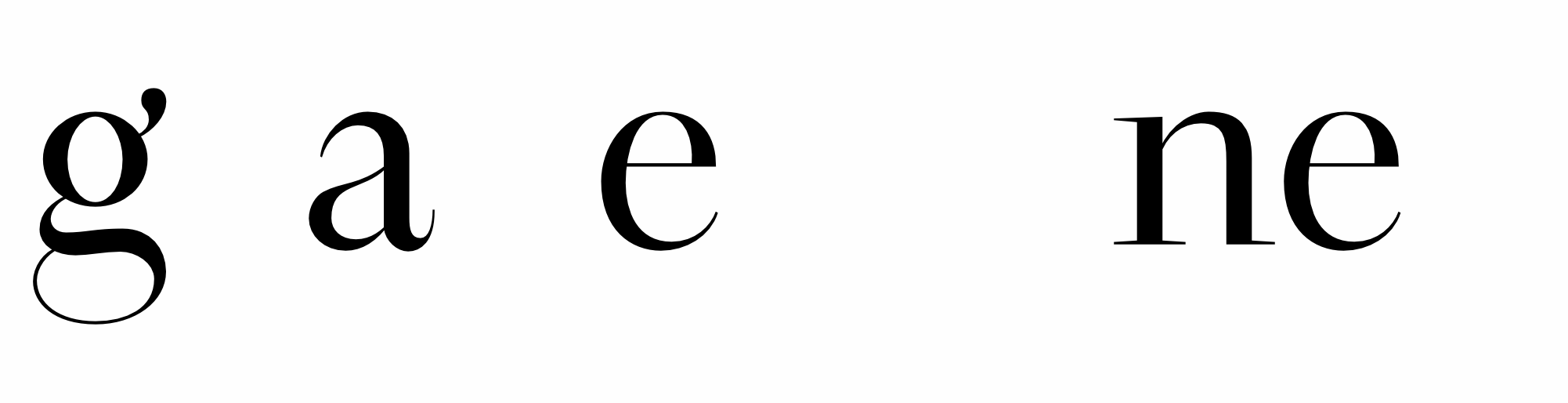
How was the process of developing Temeraire from the earlier glyphs to later stages? Was it a linear process or was it iterative?
If you have already seen the Temeraire family, you can probably tell that it was far from linear. The Regular Text style came first and was the one I explored the longest and put the most effort into. I have a folder with 50+ iterations in it. It was all about channelling vernacular influences into a usable and contemporary product.
The Italic and Bold styles started shortly after and allowed me to explore even more creative routes, as none of them is based on the Regular. But they also needed to be channelled to perform well on their own, and alongside the Regular. I was very focussed on the rendering of the text and the gray density on the page. Obviously, that required numerous proofing sessions and detailed adjustments.
The two display styles (Black and Italienne Italic) came later on and were a bit more straightforward as they were conceived in a more playful and relaxed way. But looking back at the project, I now realise that some key features were there from the beginning: concave stems, no drops on the lowercase ‘a’… also the lowercase ‘g’ and ‘t’ in the Black style.
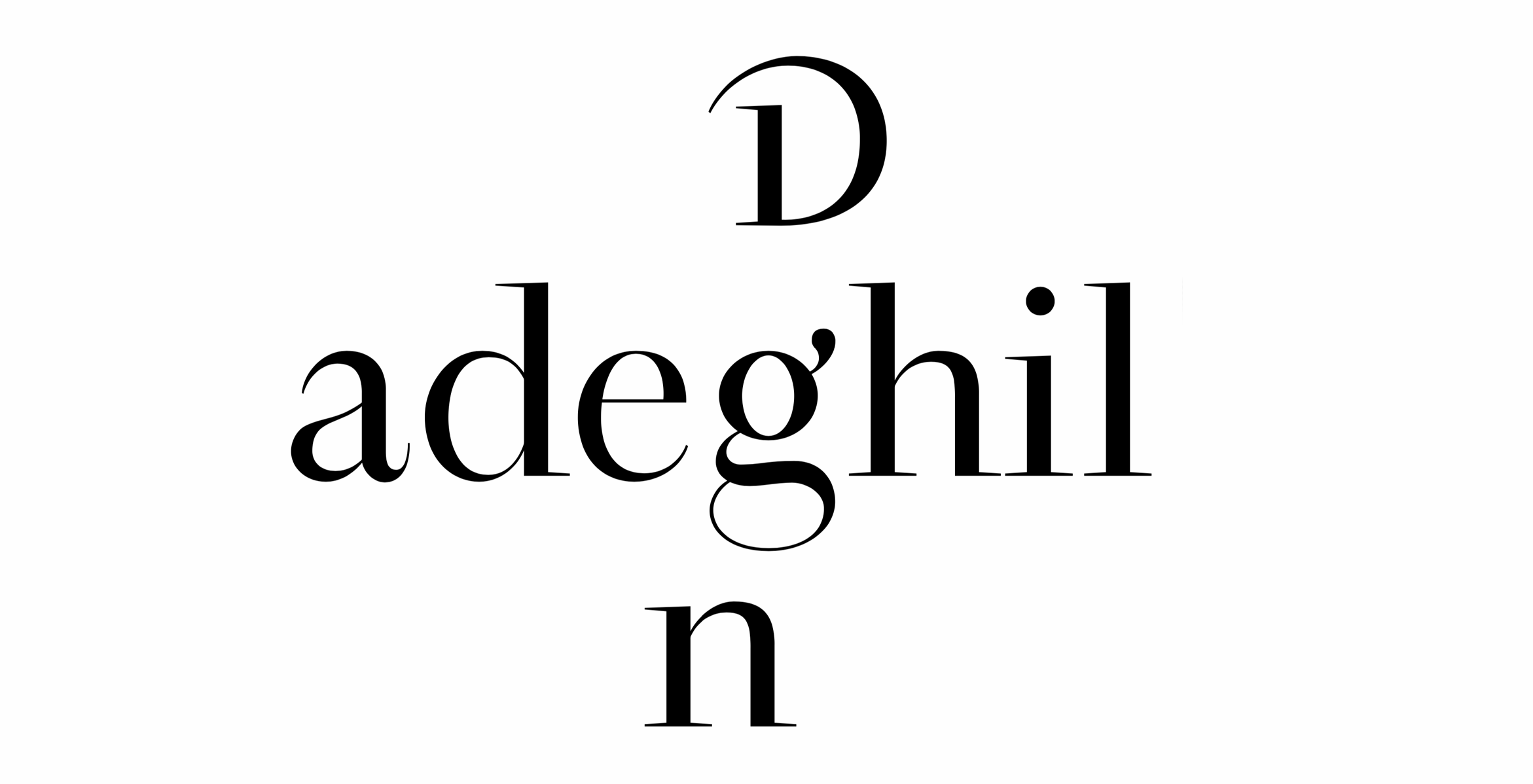
We’ve talked about historical inspiration, so what about Temeraire’s contemporary competition? Was there something you definitely wanted to avoid?
I never thought about competition because I never dared thinking about selling it. The goal was to make a fun project I’d like to use in my graphic design practice. Best case scenario: my designer friends would love to use it too. I think I just wanted to avoid boredom!
Temeraire is not a shy typeface — neither in concept nor in details. Some characters in Temeraire are definitely there to grab attention: the alternate ‘g’ and double-‘g’ ligature, the dagger in the regular weight, the lowercase ‘g’, and the alternate figures in the Italienne Italic. None of these can go unnoticed! What’s the story behind those characters? Is there any you are particularly proud of?
There are indeed plenty! I could probably tell a story about every single one of them but here are the ones that come to mind:
–I’ve been lucky enough to have been given a first name starting with the funniest letter to design (Thanks, mom!), so I have to praise all the forms of ‘Q’ from Temeraire.
–The various ‘g’ are aimed at my two friends and graphic design mentors Guillaume Grall, aka ‘GG‘, and Frédéric Tacer, who is obsessed with this letter.
–The double-‘g’ ligature was designed that way because I’m always making sure I can write ‘Snoop Doggy Dogg’ with one of my fonts, without the letters clashing.
–Listening to an interview with Matthieu Cannavo made me realise I should design my daggers as sharp pointy weapons!
–The Italic capital ‘S’ is also one of my favorite. I was not happy with my drafts and I firmly remember the small epiphany I had when I realised I could combine a drop ending at the bottom with a serif at the top to achieve a satisfying result.
–The gravestone-shaped .notedf glyph is the font Easter egg!
Temeraire includes a set of ornaments and they, like the rest of the family, have their own idiosyncratic style. Can you explain their origin? How do they relate to the family?
When I started doing fake mock-ups of gravestones to test the typeface in context (yes, I did that), I noticed something was missing. Most of the British gravestones were either featuring a skull, an hourglass, or a heart. Sometimes all of them! Conveniently, I had found some ornaments in an Edmund Fry facsimile specimen. I loved the look of the skull so I started digitising it, continued with the hourglass, and then designed a heart of my own.
Designing ornaments was a light refreshment between two heavier work sessions, so I kept going with them. Even though they are often judged useless nowadays, ornaments were also useful to showcase the typeface and create specimens, which was also part of the school program. It was a win-win situation.
Eventually, when working on the commercial version of Temeraire, they turned out to be too daunting to complete on my own. So I spent a bit of the scholarship prize to hire my friend and fellow schoolmate Pauline Fourest to help me finish them.
Trivia: As Temeraire is named after a famous ship, I started digitising a boat ornament too. But after I realised Maria Doreuli had already done one for her William typeface, I gave up and erased it. If you want the boat ornament, then use the one from William!
Temeraire in use to promote the open day at ESAD Amiens, 2020. Poster design by Clément Grison and Mia Thibierge.
Let’s talk about what happened once you finished the course. You began working on the typeface with established type foundry TypeTogether as part of the Gerard Unger Scholarship. How did you handle the change from academic practice to professional production?
I instantly became a full-time type designer straight out of school, and soon enough I became quite busy working on other projects than Temeraire. During the school year I worked daily and exclusively on Temeraire, then suddenly I was only able to dedicate a few hours a week to it. This was quite frustrating to me.
Working with TypeTogether, I also realised the quality gap between my student project and what it takes to make a decent retail font. So on the rare moments when I was able to work dedicatedly on Temeraire, it was mostly about fixing stuff rather than really expanding the character set as it should have been. But it’s part of the process, and I wanted to deliver a top-notch product since it was my first typeface.
I would probably have quit before the finish line and failed without the help of the TypeTogether team. Type design is a collective process and Temeraire is no exception.
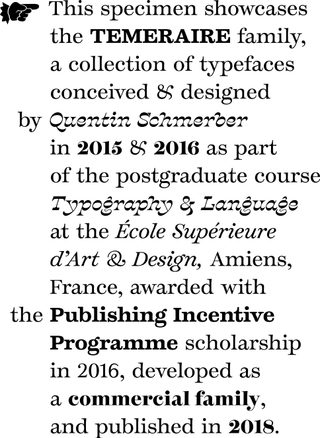
Did the mentorship meet your expectations?
Sure, the whole team has been very helpful, and without them Temeraire wouldn’t have seen the light of the day. I couldn’t have done it by myself alone!
And finally, what did you take with you from the making of Temeraire (from a school project to a commercial one under mentoring) that won’t forget?
Turning a student project into a professional commercial release is a hell of a task: first you need to brush off the design part and need to make all the choices and sometimes compromises (I did slightly cheat on that as I left several stylistic sets in the fonts). Then you’re going into the production part, a bit more ungrateful and long, but very rewarding when it’s done. And then start the testing and quality assurance phase, which probably any student never thought about.
After that the fonts are done, but there’s still the specimen and the promotional material to think about and design. All of these require time and various skills, and that’s why I am very thankful to have benefited from the help of several individuals from the TypeTogether team for each and every one of these steps. Actually, the poster is the only thing I eventually designed by myself!